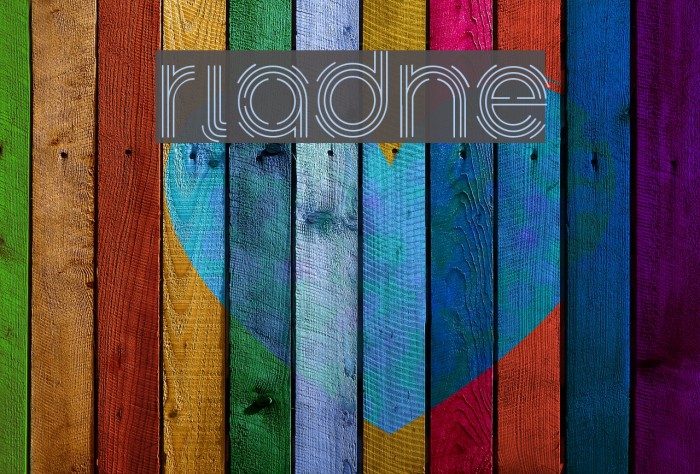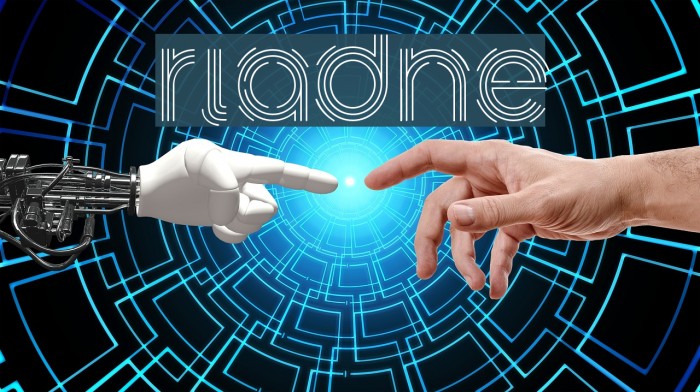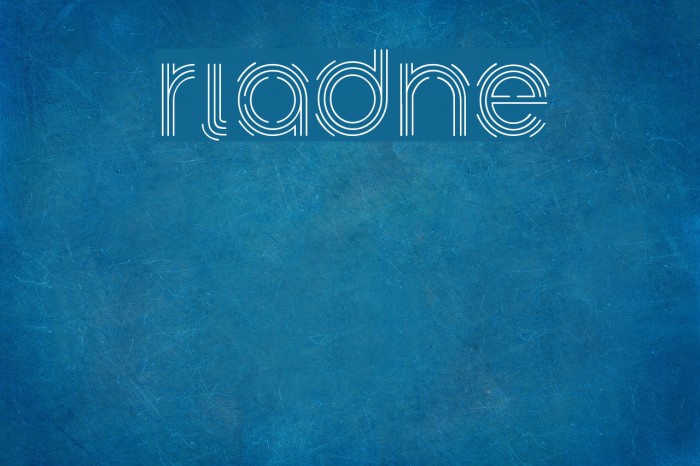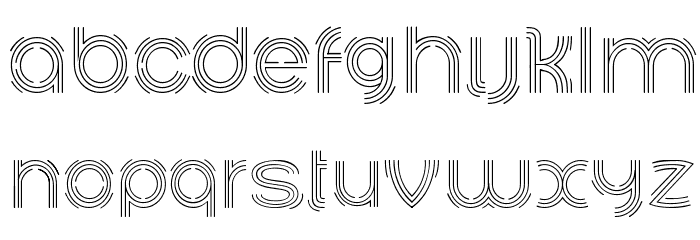
Ariadne Font
Ariadne Description
This font features a unique, decorative style characterized by multiple parallel lines forming each letter. The design creates a sense of movement and depth, making it visually striking and modern. The lowercase letters are consistent in height and maintain a geometric structure, which adds to the overall uniformity and balance of the typeface. The absence of serifs and the use of clean, straight lines give it a contemporary feel, while the intricate line work adds an artistic flair. This font is ideal for projects that require a bold statement or a creative touch.
| Proposed Projects | Ideal for branding, posters, album covers, and any design requiring a modern, artistic touch. |